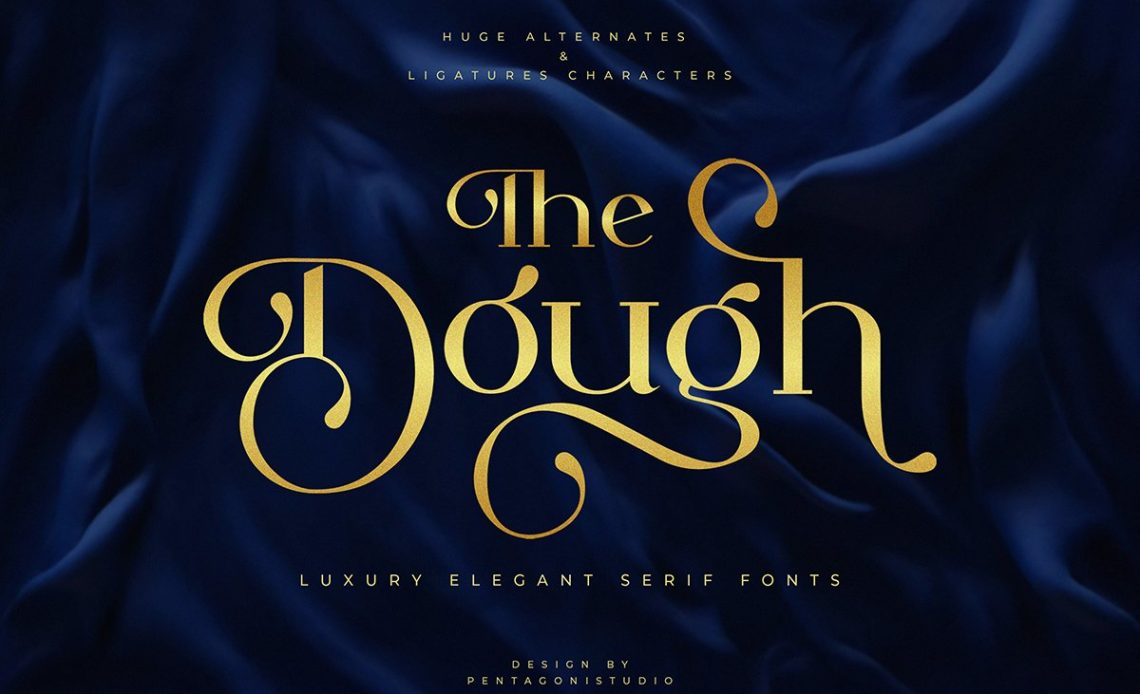
Introducing The Dough, a luxury style serif font created by Pentagonist Studio. Designed to captivate and inspire, The Dough is the perfect addition to any fashion website. Its elegant and sophisticated style is sure to elevate any project.